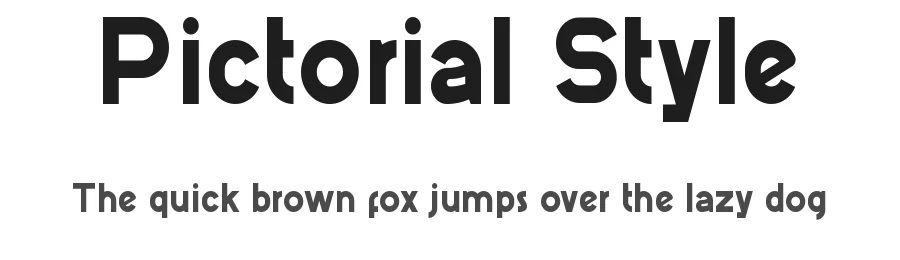
About Cakewalk Font
Cakewalk Font is a versatile sans-serif font that works for both headings and body text. Pair it with a contrasting serif or slab serif font to add visual interest and a clear distinction between titles and body copy.